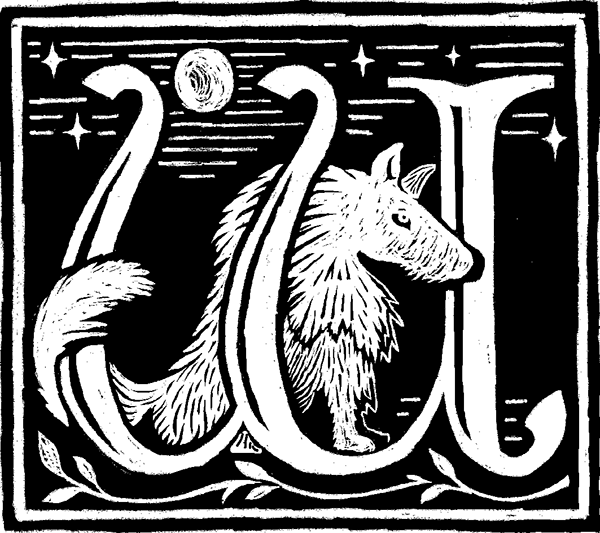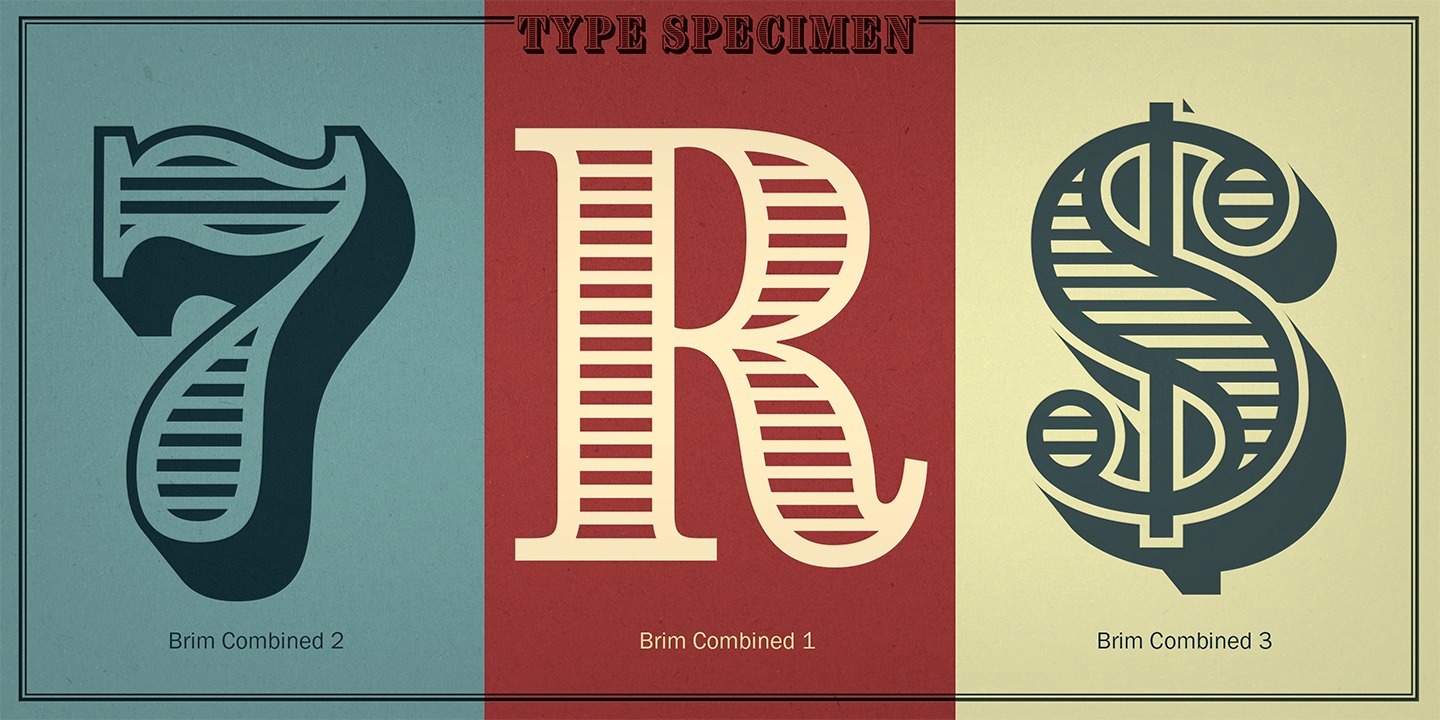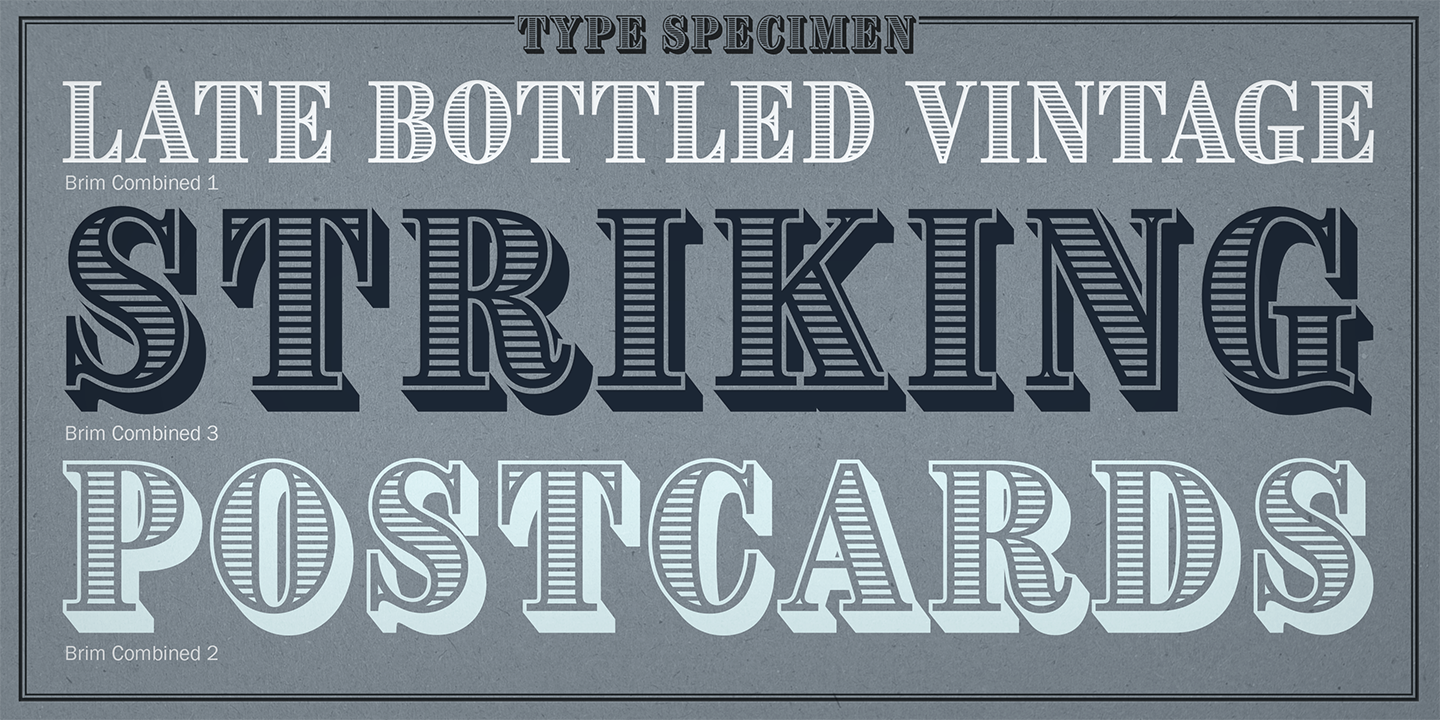
Jamie Clarke Type [Jamie Clarke]
Jamie Clarke (Bristol and London, UK, and at some point, Sydney, Australia) creates illustrative type and lettering. He ran his own digital agency for ten years, and retrained after that period by studying type design at the University of Reading and letterpress at the St. Bride Foundation in London. His commercial typefaces include Brim Narrow (2015). He writes about this engraved layered typeface: Brim is inspired by antique woodtype and chromatic type from the 1800s. Its various styles stack together creating a variety of decorative combinations. Each layer can be assigned its own colour. The horizontal etching in some styles and subtle shadow effects can give the typeface the appearance of a vintage money font. In 2016, he added Brim Combined.
His commissioned led him to the Kelmscott Bakehouse K (2016), a decorative letter commissioned by Kelmscott Bakehouse and based based on William Morris's ats and crafts style.
Typefaces from 2017: Rig Shaded (a large 3d shaded typeface family---the best such collection available to date).
Typefaces from 2018: Shovel Knight Drop Caps (partial woodblock print alphabet), Rig Solid (a superb family of layered 3d fonts).
Typefaces from 2020: Span (a 3-style a modern glyphic type family that flaunts its engraved heritage with sweeping serifs and sculptural forms).
Typefaces from 2021: Rig Sans (a 16-style geometric sans).
Author of the very informative article The Evolution of Chromatic Type (2017).